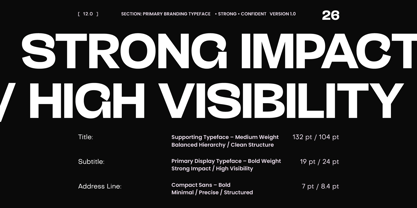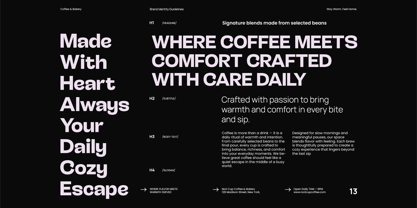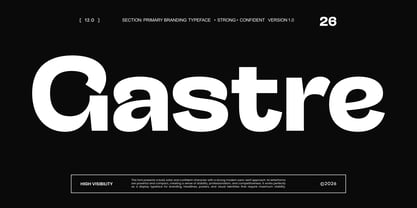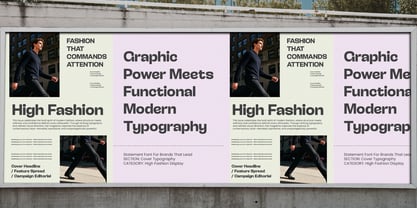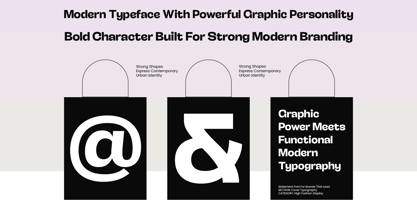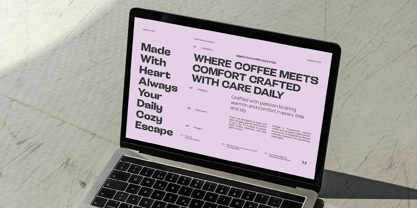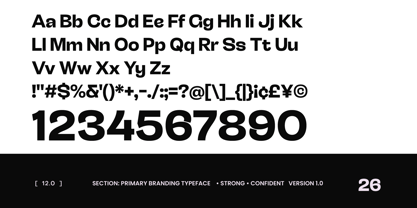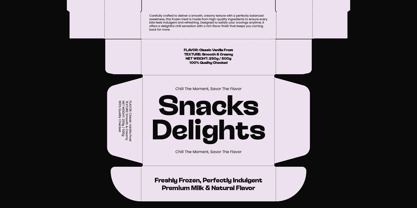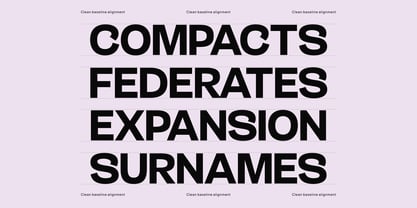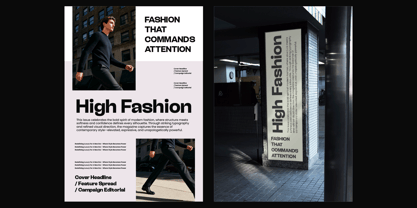
Gastre
by Glyphofik Type
The Gastre Font Family was designed by Mujahid Al Fikri and published by Glyphofik Type. Gastre contains 1 styles. More about this family
Gastre is made for creators and brands who want to feel approachable and genuinely human. As a Display Sans Serif, it delivers strong visual clarity with a relaxed, and friendly character — designed to include everyone. With its welcoming and casual nature, Gastre helps brands build honest emotional connections without feeling stiff or out of reach. Every letterform is crafted to make people feel like they truly belong. Perfect for food & beverage and lifestyle brands — from product packaging and event posters to social media content — Gastre becomes a consistent, friendly voice across every touchpoint.
Designers: Mujahid Al Fikri
Foundry: Glyphofik Type